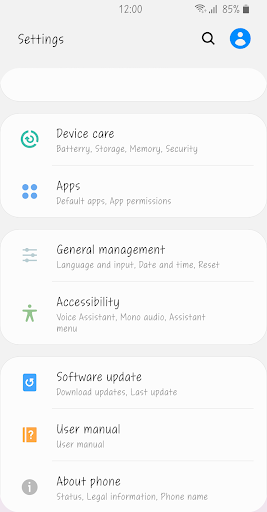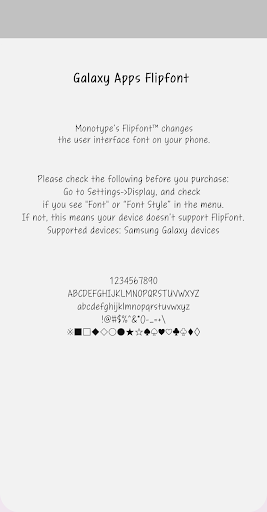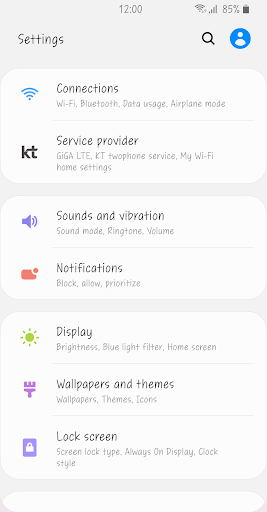
Fine Tomboy™ Latin Flipfont
It is a handwriting-style font with little change in thickness.
The natural form of comfort and the undecorated shape exudes a warm feeling that is optimized for mobile devices.
Its simple appearance and dynamic posture have a stylish charm.
Irresistible charm.
Give myself to the rhythm and dance.
I'm enjoying the present the way I want to do what I want.